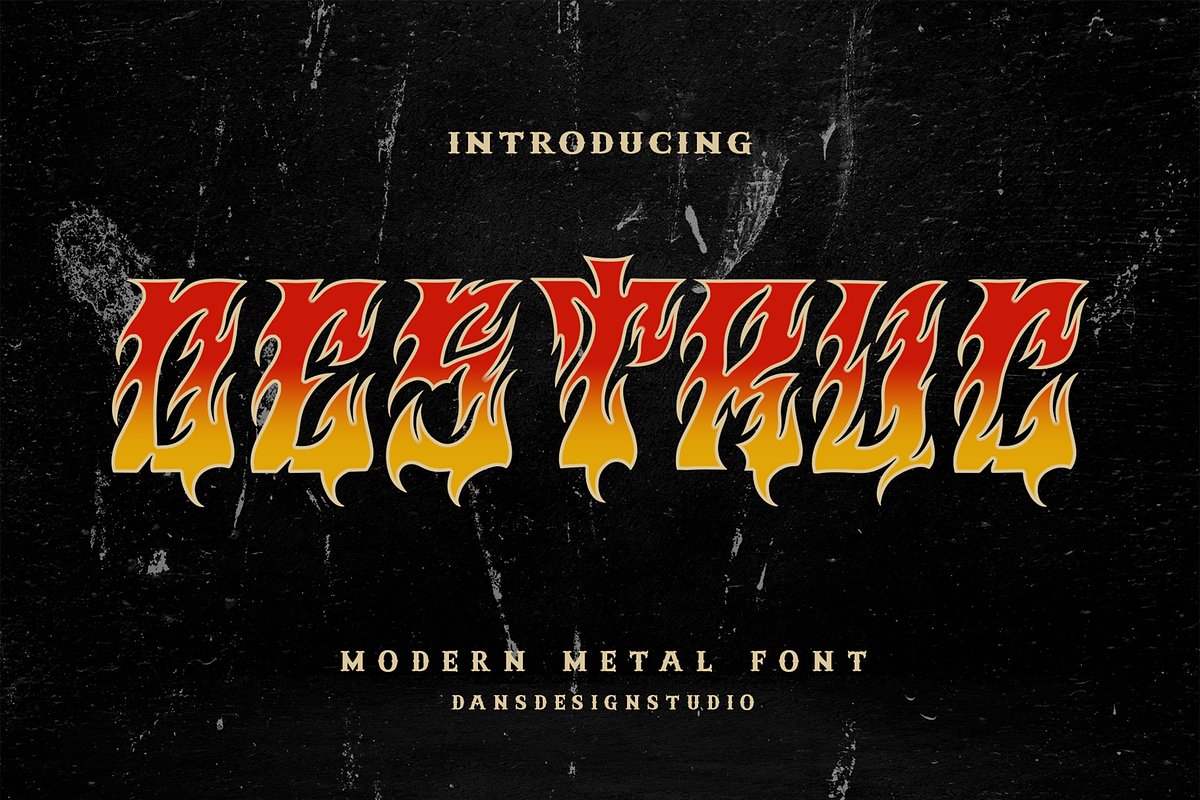
Please note that you must purchase this font for commercial use. You can download Destruc Modern Metal Font for free, strictly for personal testing purposes only. Destruc is a bold, industrial metal font designed to bring strength, power, and an edgy vibe to your designs. With its sharp, angular lines and rugged appearance, Destruc Modern Metal Font Free Download is perfect for rock band logos, album covers, music posters, heavy metal merchandise, and any project that requires a strong, rebellious aesthetic.
This font's futuristic and aggressive look makes it ideal for designs that need to stand out with a dynamic, metal-inspired feel. It includes uppercase and lowercase letters, numerals, punctuation, and multilingual support, ensuring versatility across creative projects.
Whether you're working on a high-energy music project or building a tough, modern brand, Destruc adds a raw, bold impact to your typography.